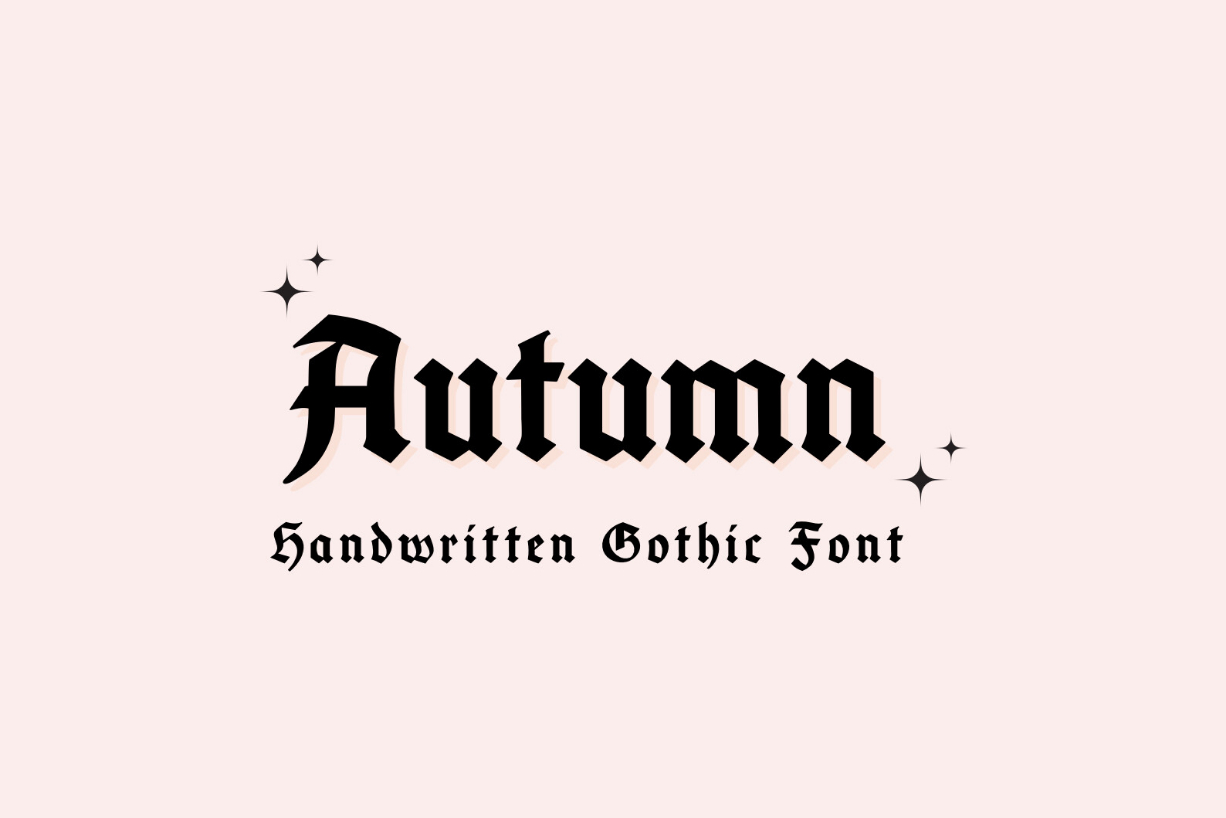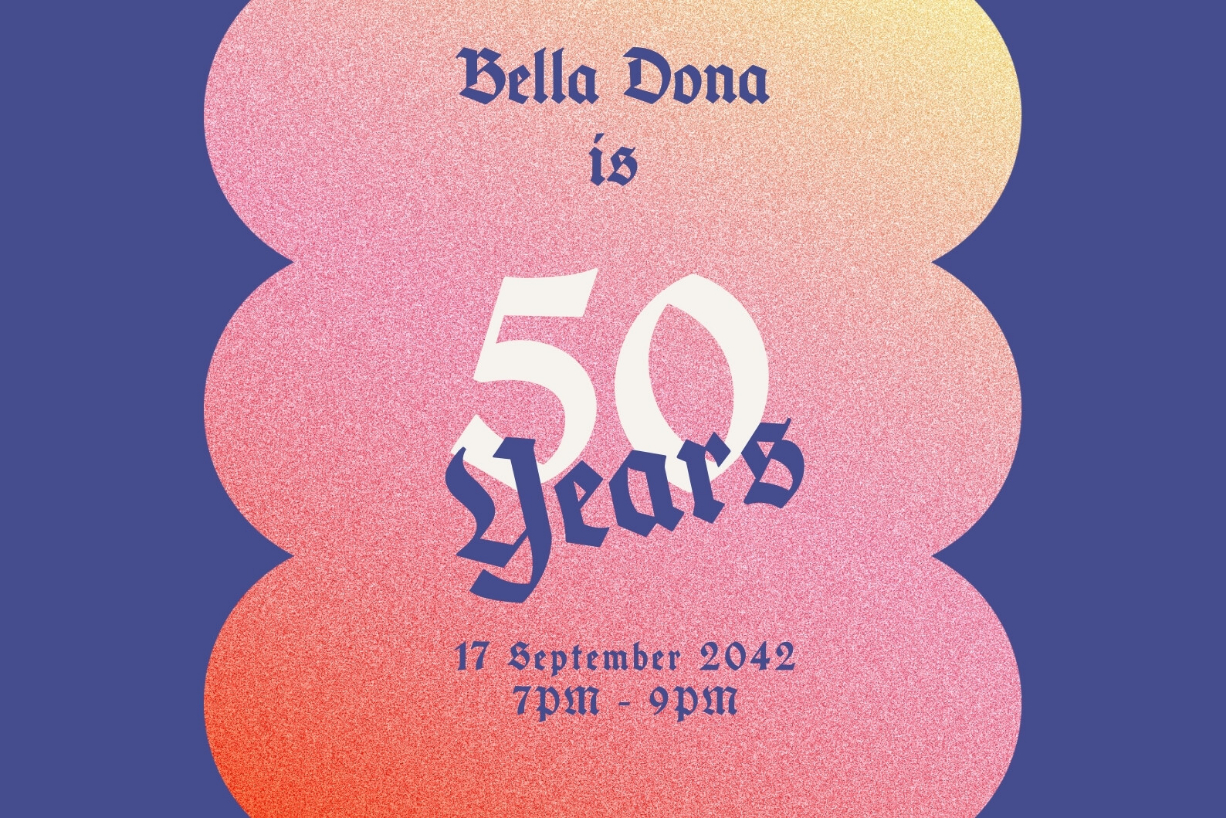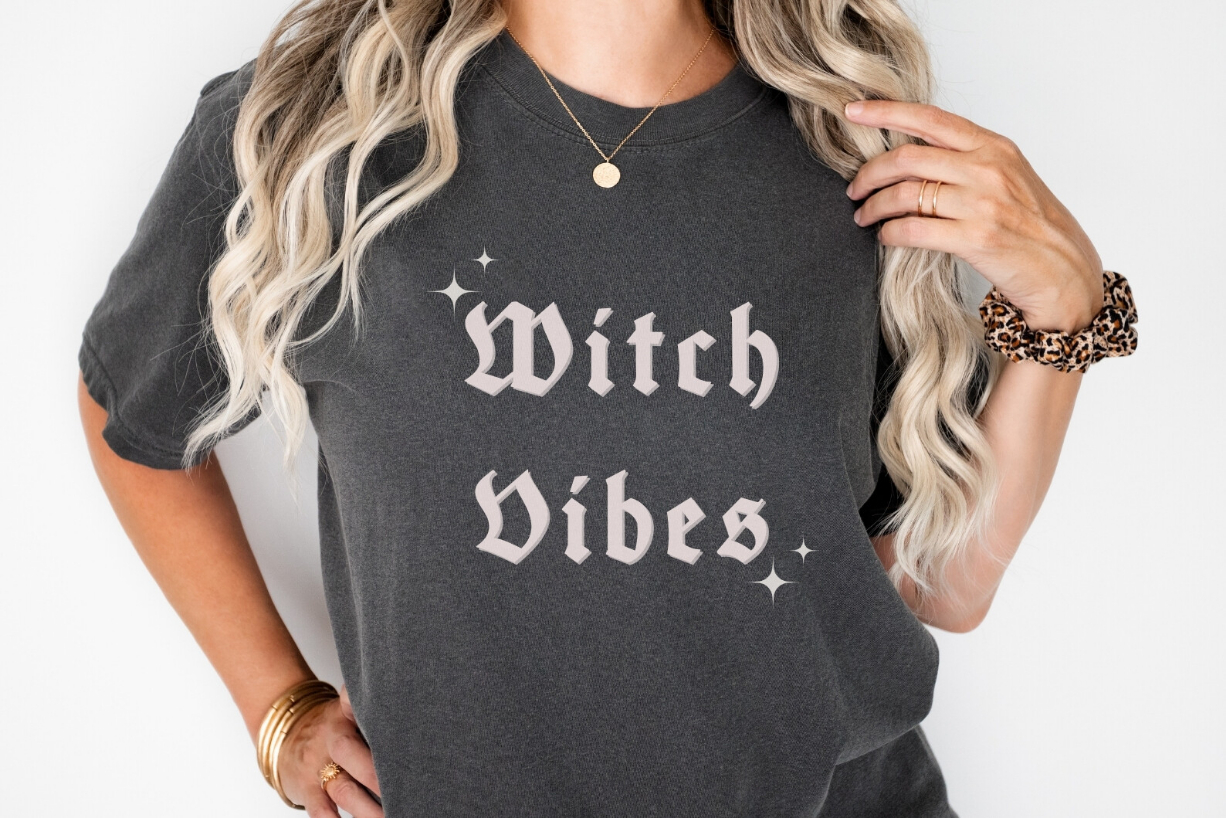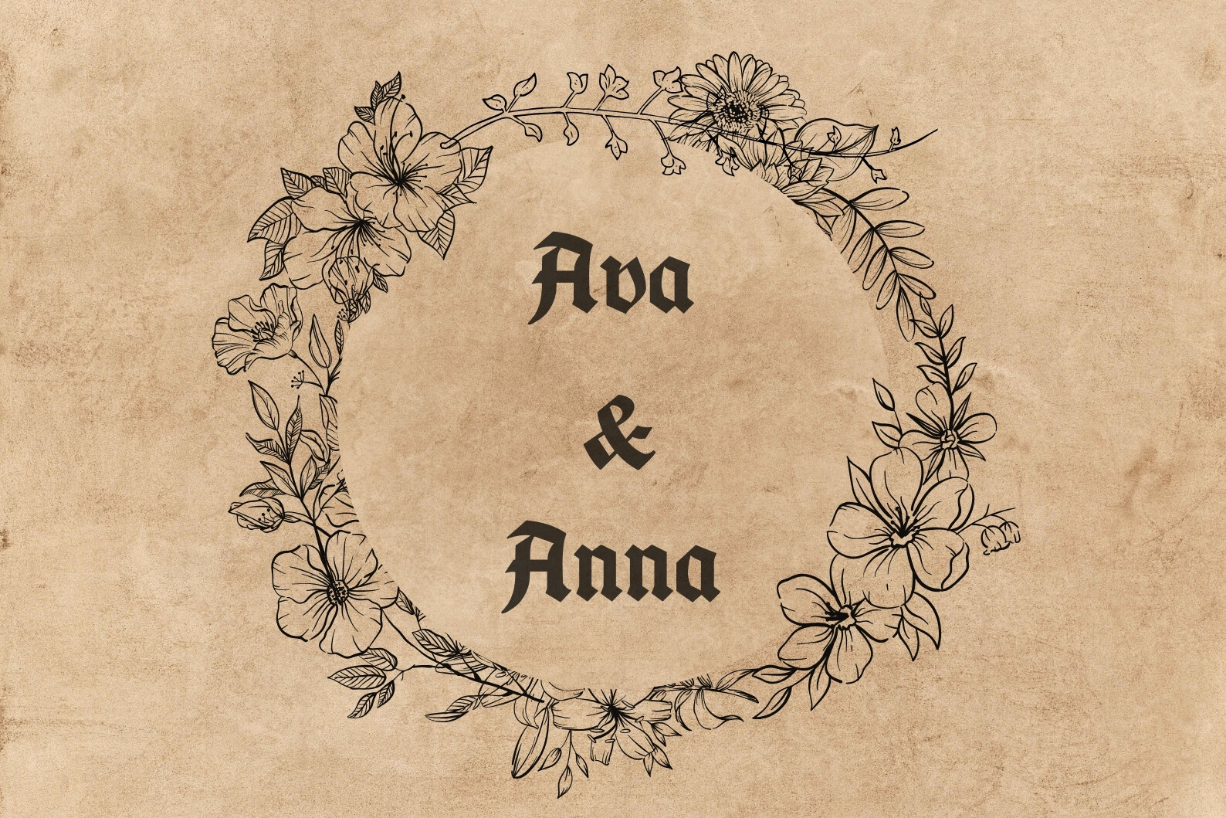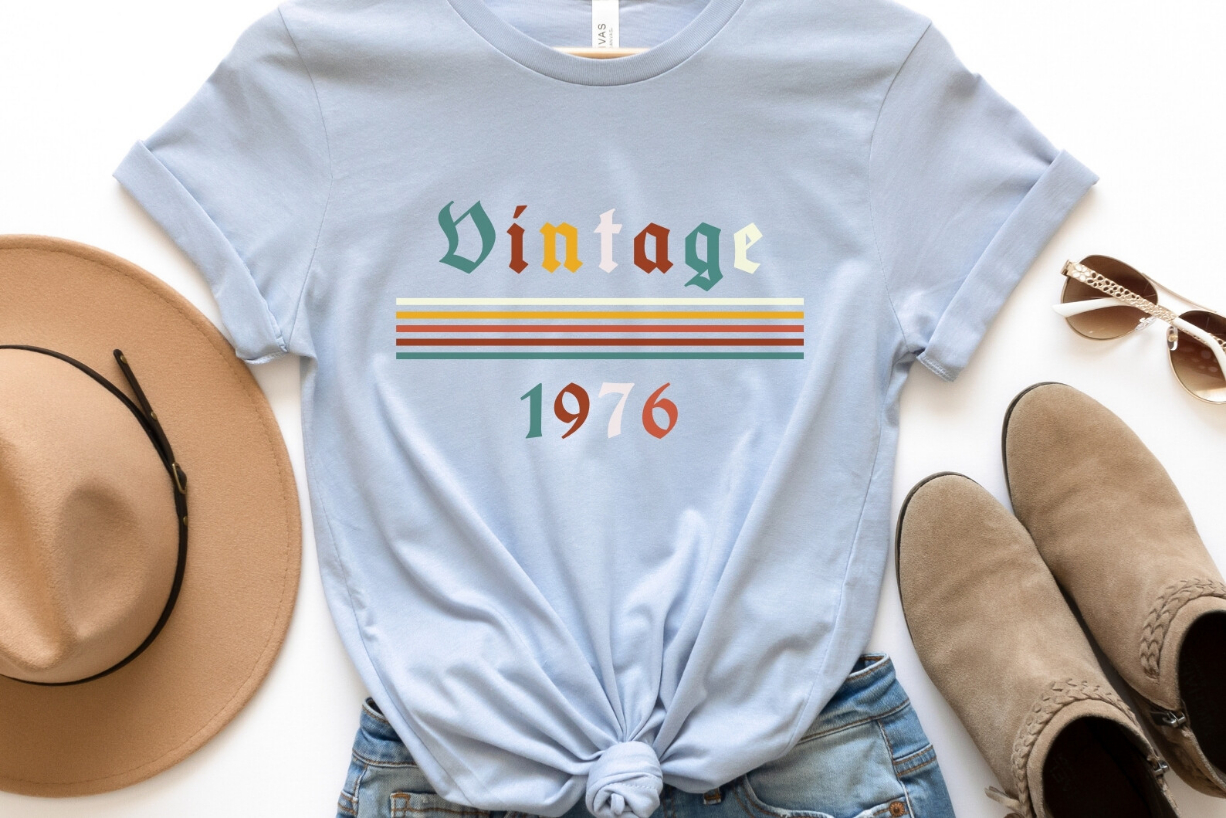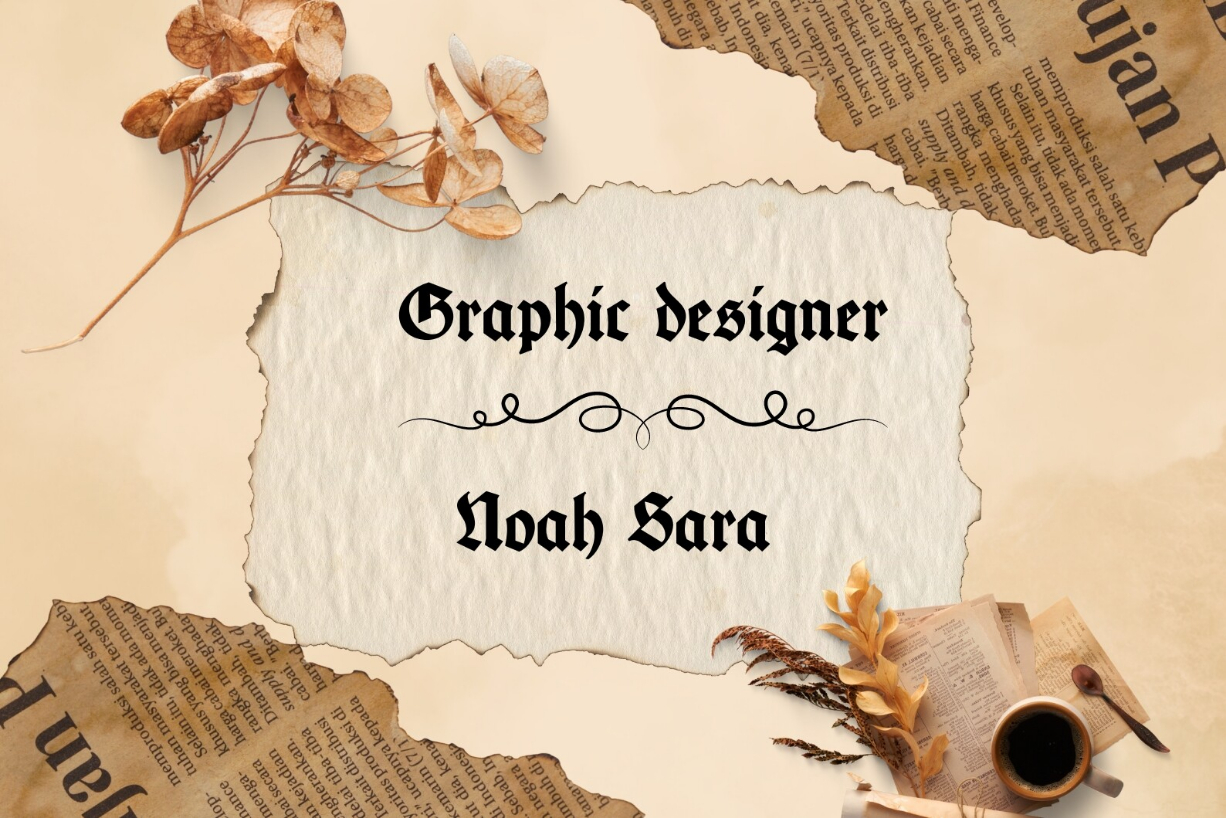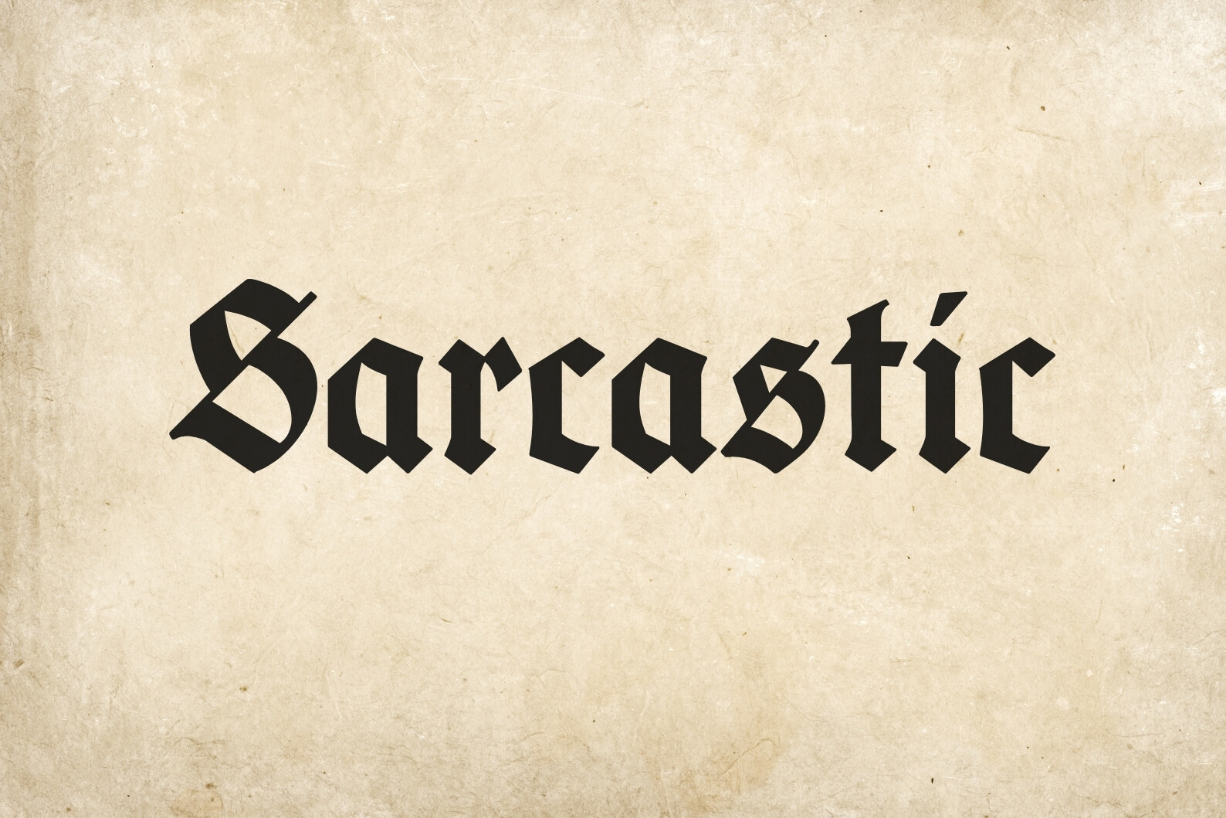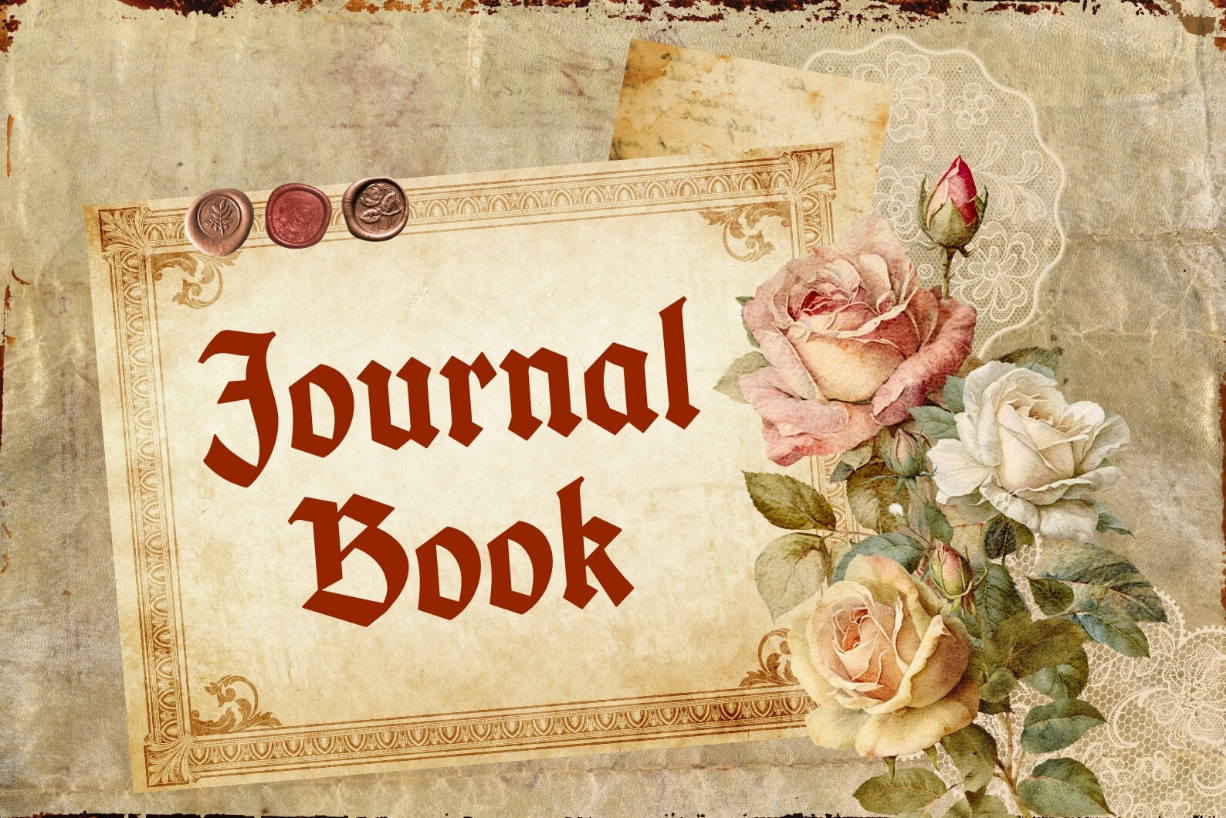
Autumn Font
About Autumn Font
Autumn is a Gothic blackletter font that channels the timeless elegance of medieval script. Its intricate and sharp letterforms evoke a sense of historical richness and sophistication. Ideal for projects requiring a touch of Gothic allure, Autumn adds a bold and distinguished aesthetic to your designs.